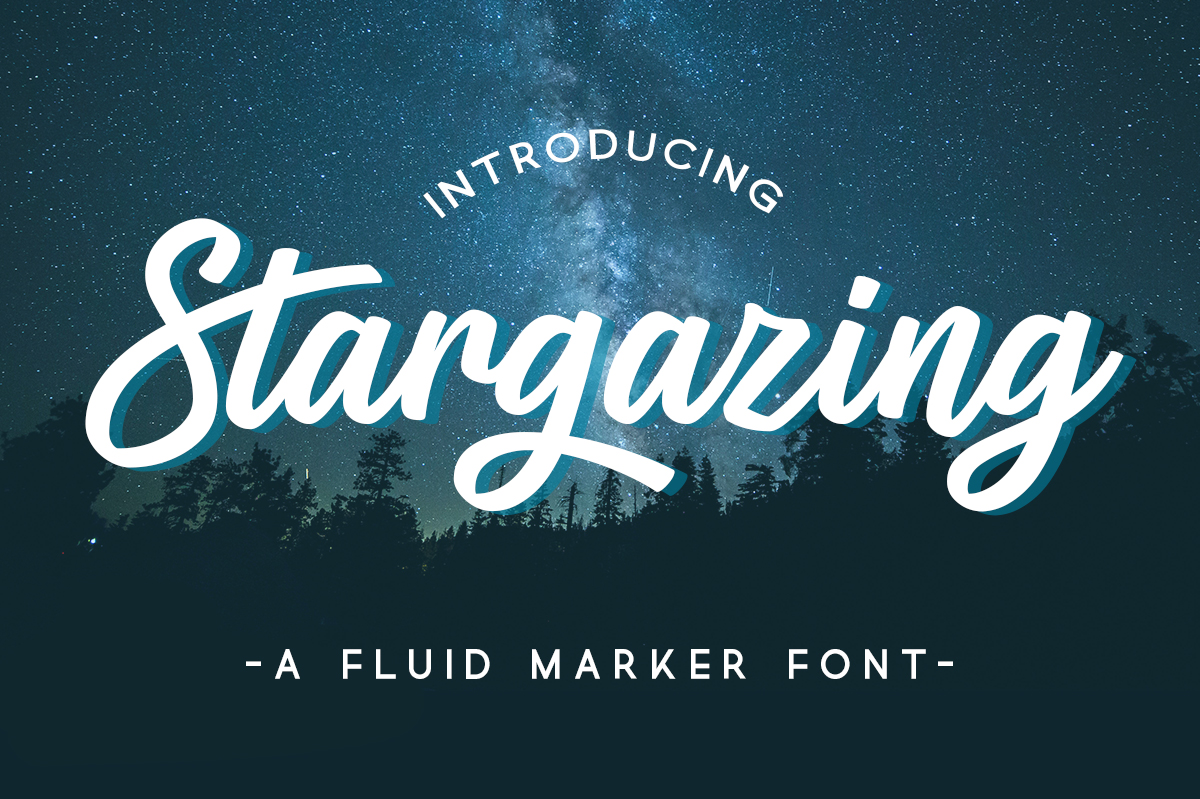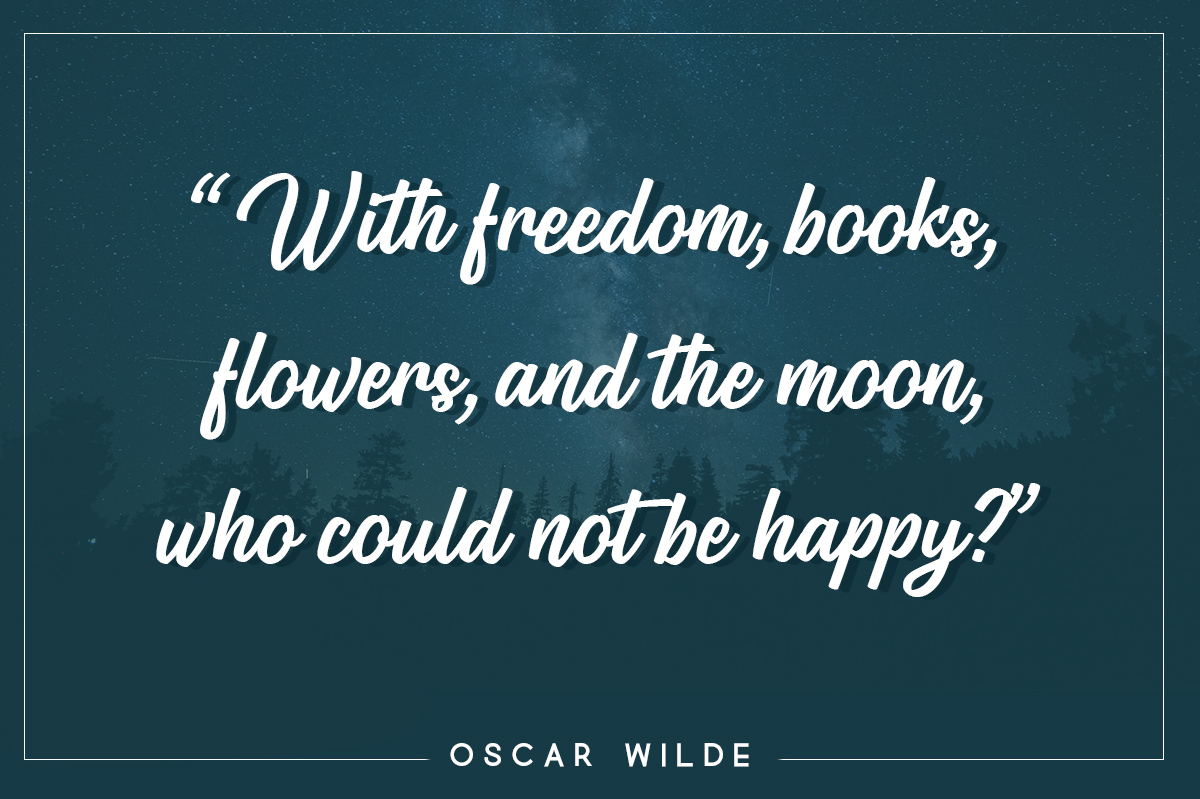
Stargazing Font
About Stargazing Font
Stargazing is a gorgeous script font, ideal for headlines and display projects. This painterly styled cursive script is well weighted and legible without skimping on style.